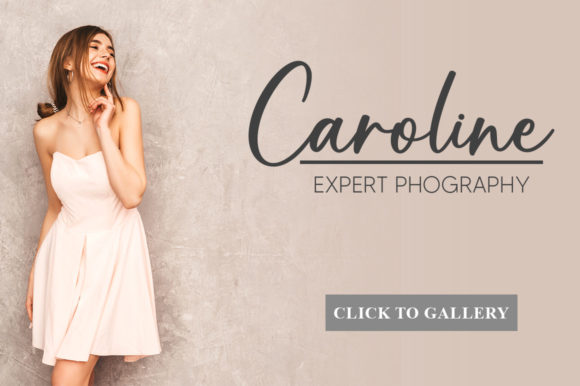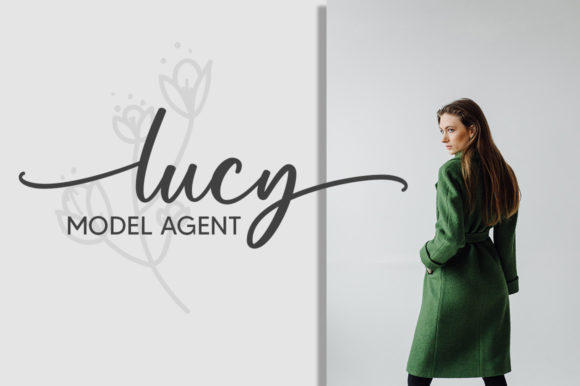
Manhattan Font
db-ku.com - Script & Handwritten -- Manhattan is a delicate, elegant, and flowing handwritten font. It has beautiful and well-balanced characters and as a result, it matches a wide pool of designs. Manhattan is PUA encoded, which means you can access all of the glyphs and swashes with ease!